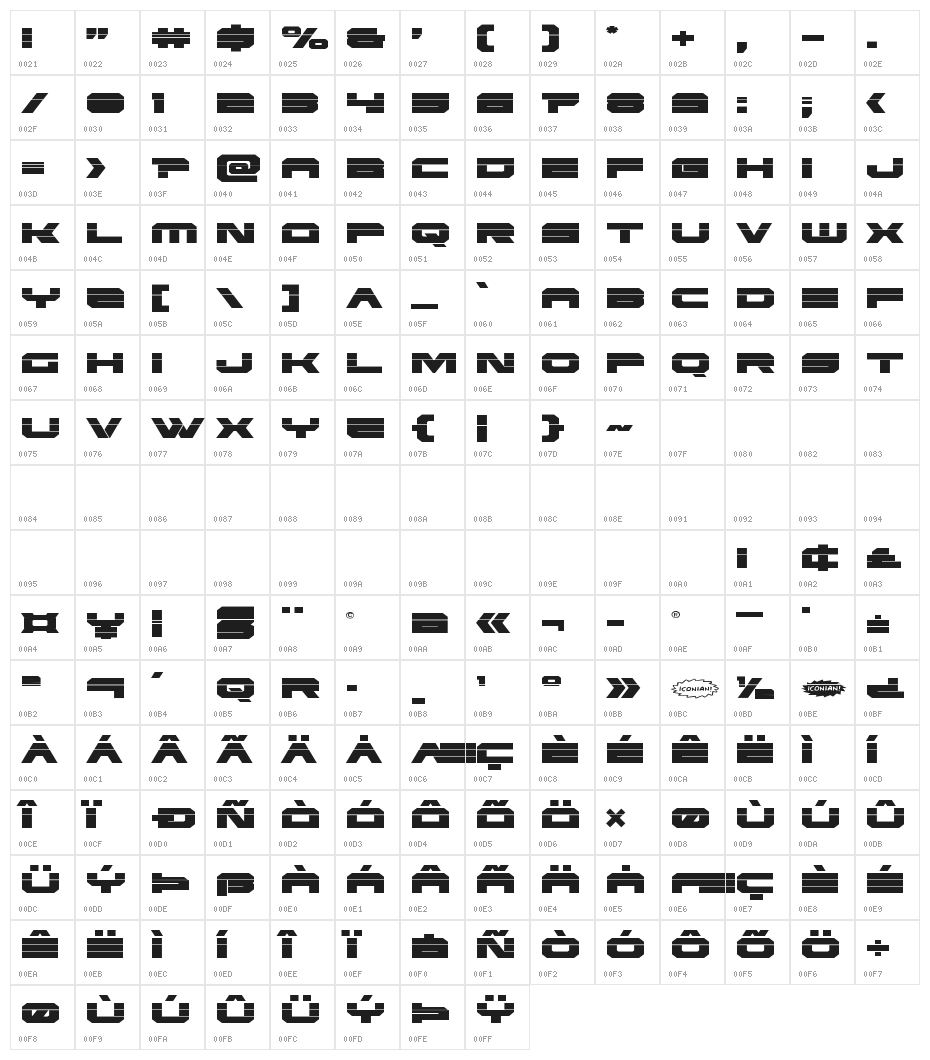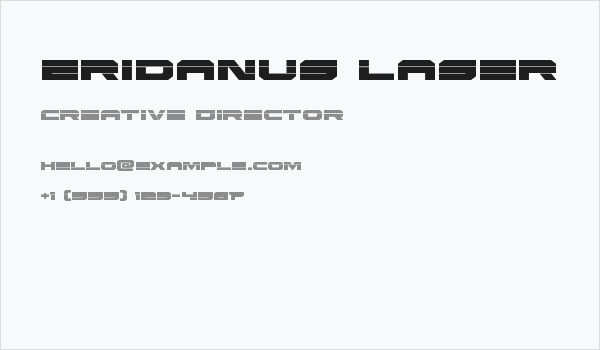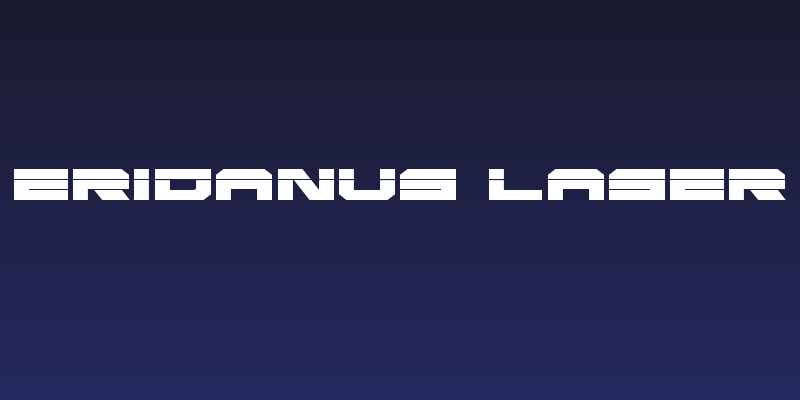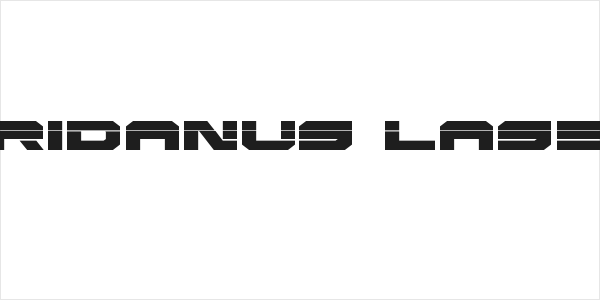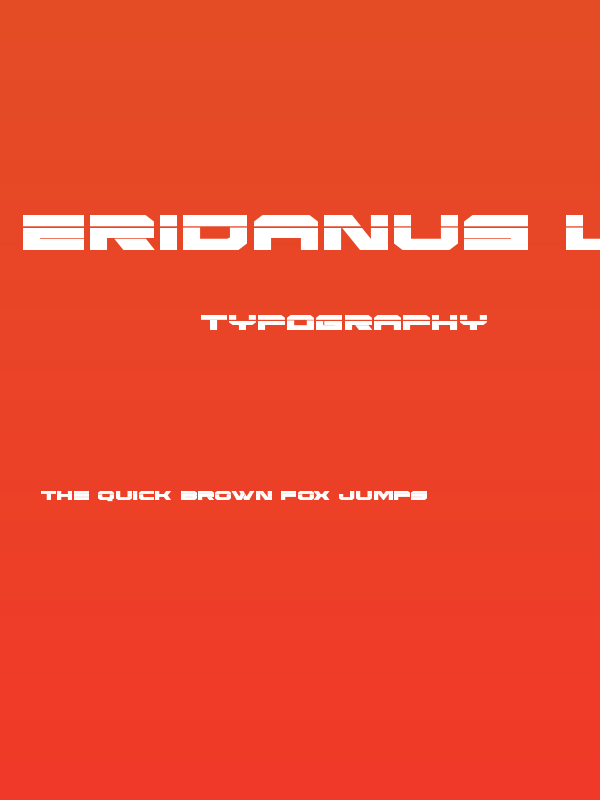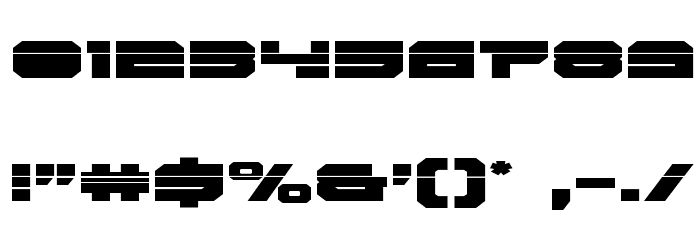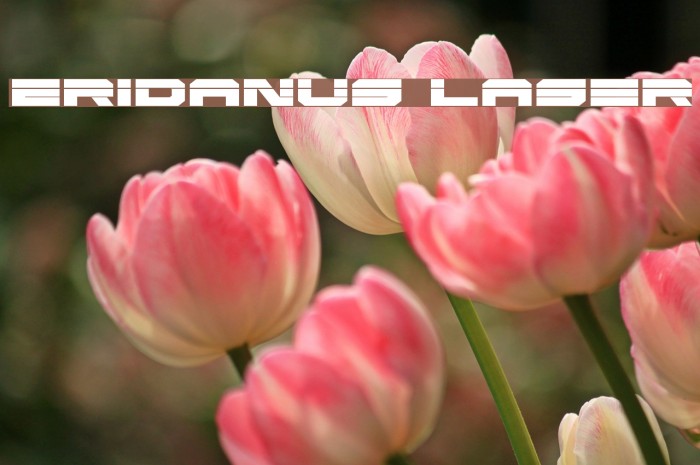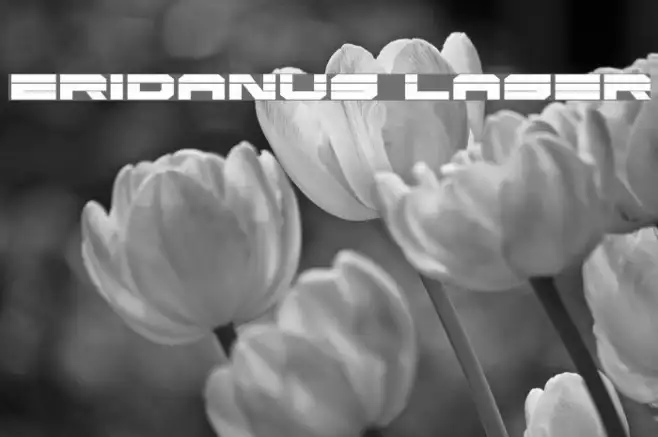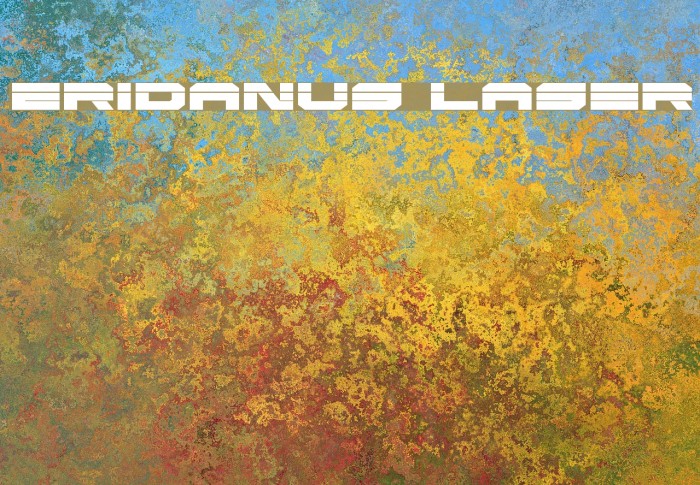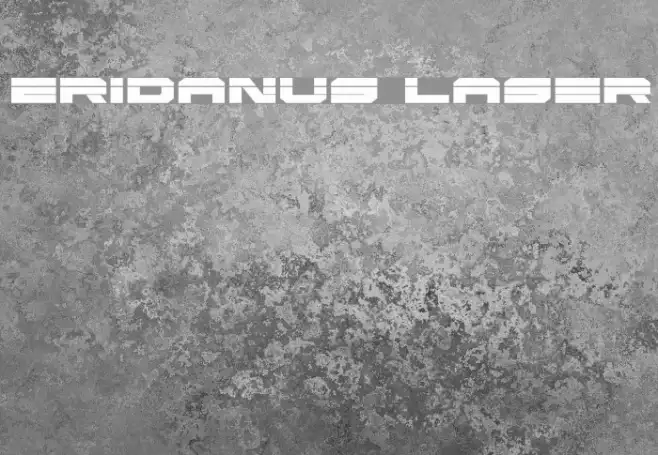
Eridanus Laser Font
Eridanus Laser Description
This font features a futuristic and geometric design, characterized by bold, angular shapes and a distinct stencil-like appearance. The characters are constructed with sharp edges and straight lines, giving it a modern and technological feel. The uppercase and lowercase letters maintain a consistent style, with a uniform height and width that enhances readability while preserving its unique aesthetic. The numerals and special characters follow the same design principles, ensuring a cohesive look across all glyphs. This font is ideal for projects that require a strong, impactful visual presence.
| Proposed Projects | Ideal for technology branding, sci-fi movie posters, video game titles, and modern advertising campaigns. |